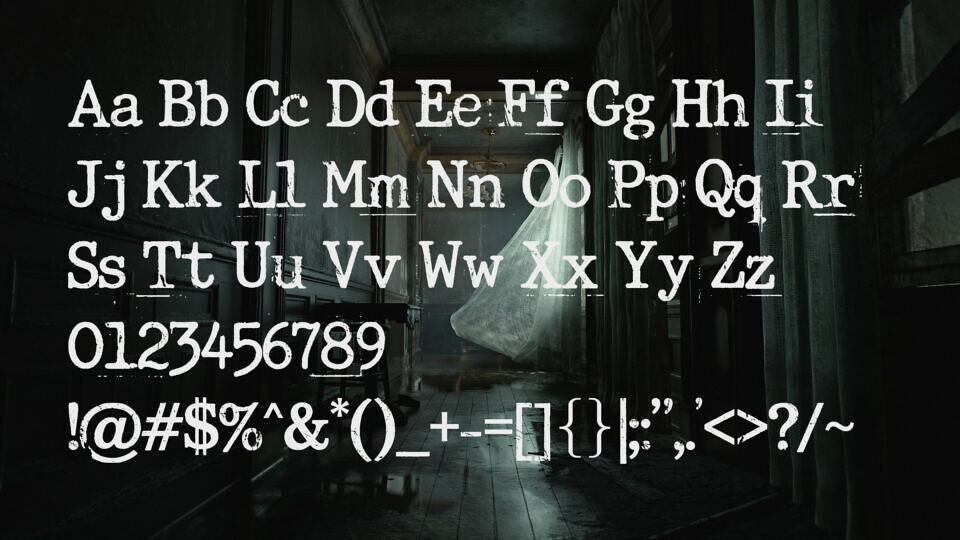
Resident Evil Requiem Logo Font
The Resident Evil Requiem Logo Font is a striking, fan-made typeface inspired by the lastest legendary survival horror game, Resident Evil Requiem. There are two font styles, one for each part of the logo, that captures the franchise’s dark atmosphere through sharp, angular serifs and a weathered, distressed texture.
Its high-contrast design features elongated vertical strokes and aggressive terminals, mirroring the iconic “Resident Evil” branding. Perfect for gaming video content, horror-themed graphics, or custom logos, this display font balances legible geometry with a gritty, cinematic edge.
Key Features:
• Contextual Ligatures: If you type double letters (like the “oo” in “cool”), the font automatically uses alternate glyphs so they don’t look identical. This gives your text a more organic, grungy horror look.
• Easter Egg: Try typing “meiuqer” (backwards) to instantly generate the full “Requiem” logo style!
Designed by: Snakeyboy